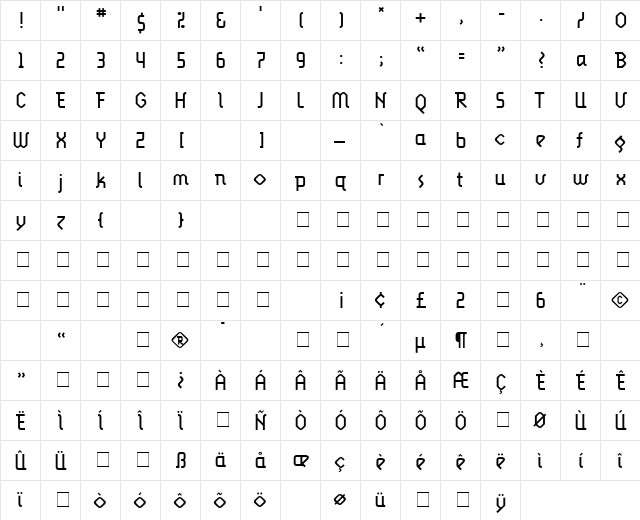
Moonatix Medium
Design Context for Moonatix Typeface
Moonatix takes a measured approach to typography — its balanced proportions and neutral character make it a reliable workhorse for both digital and print work.